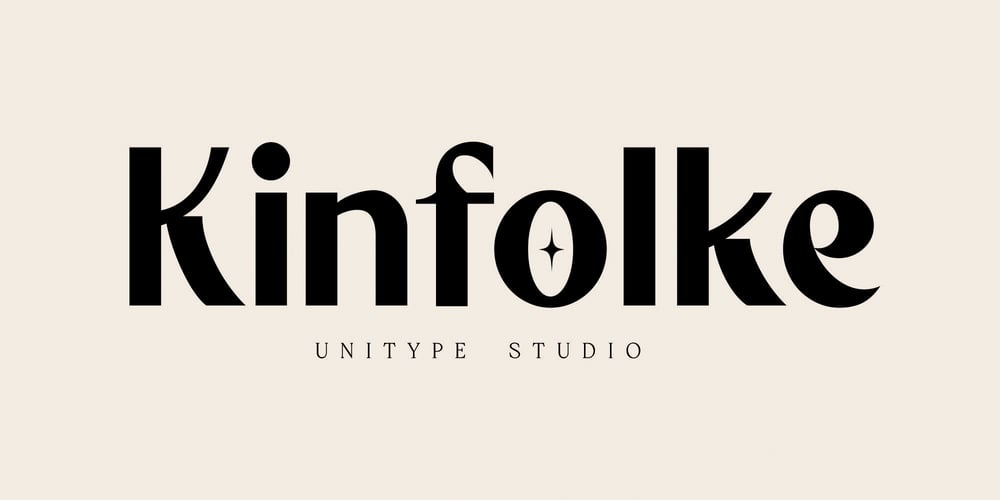
Kinfolke
Kinfolke font
Kinfolke Font Family was designed by Faizul Muna and published by Unitype Studio. Kinfolke contains 1 styles and family package options. Introducing Kinfolk sans-serif font. The perfect choice for designers and creatives looking to add a modern, minimalistic touch to their projects. Crafted with precision and attention to detail, our sans-serif font offers a clean and stylish look that will elevate your designs to the next level. With its versatile design and legibility, it’s ideal for a wide range of projects, including logos, branding, web design, and print materials.Thanks for downloading, and I hope you enjoy it!